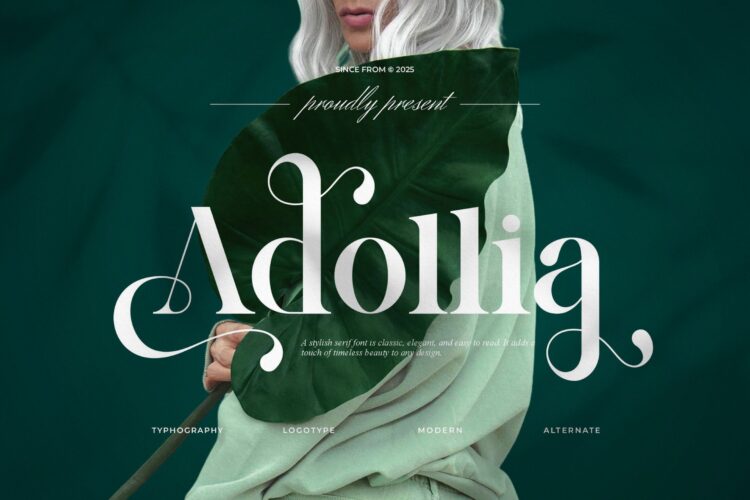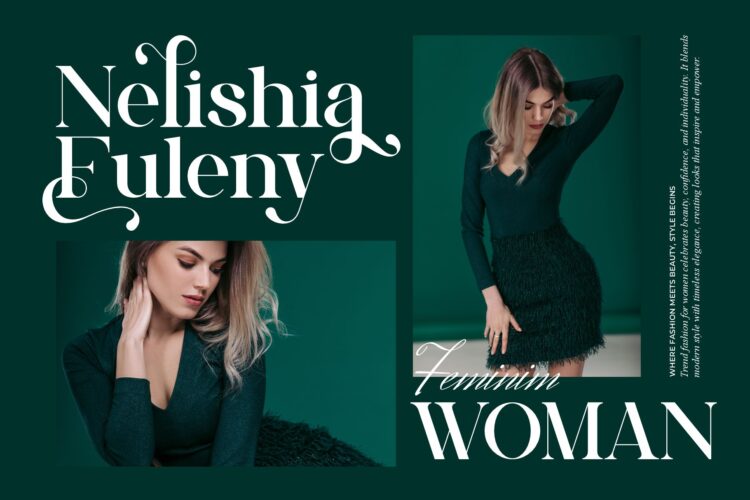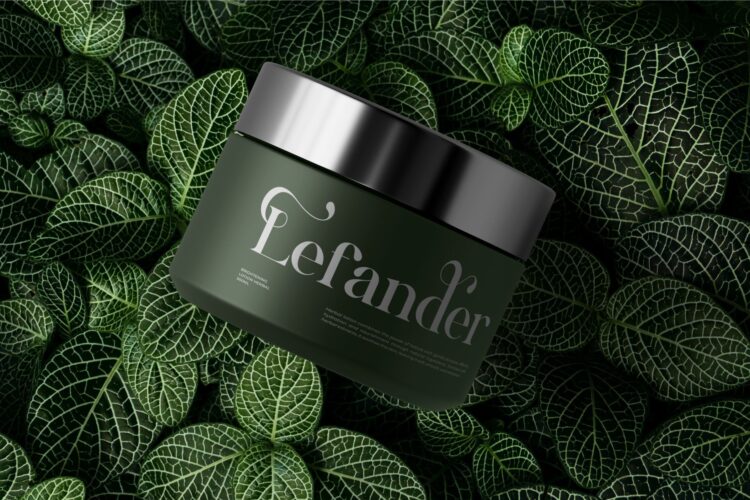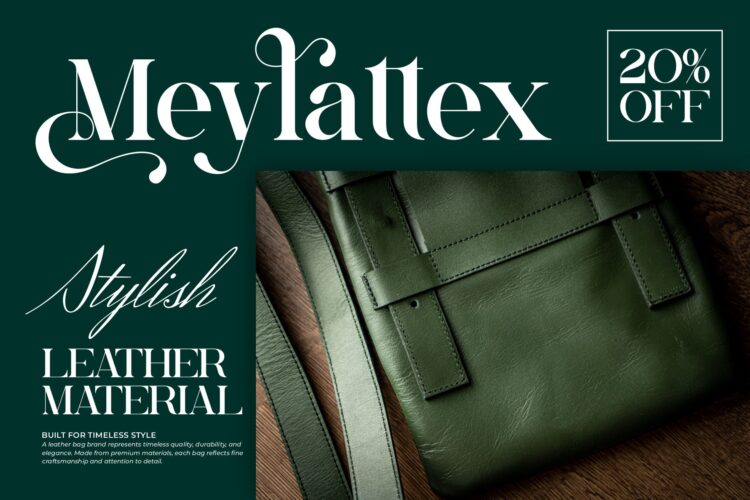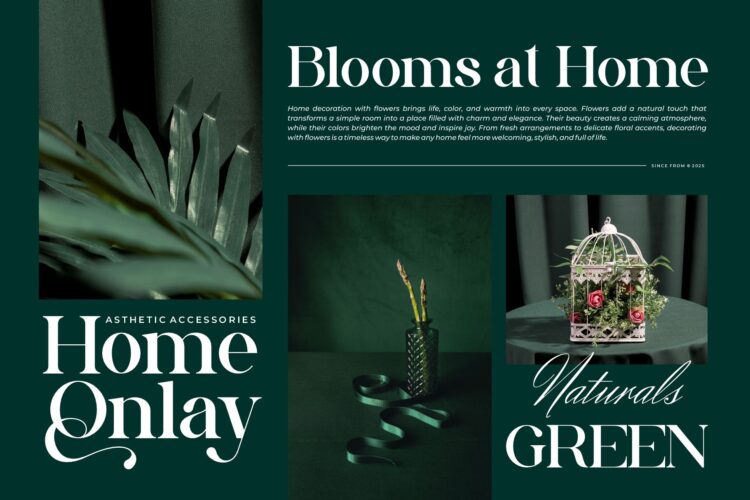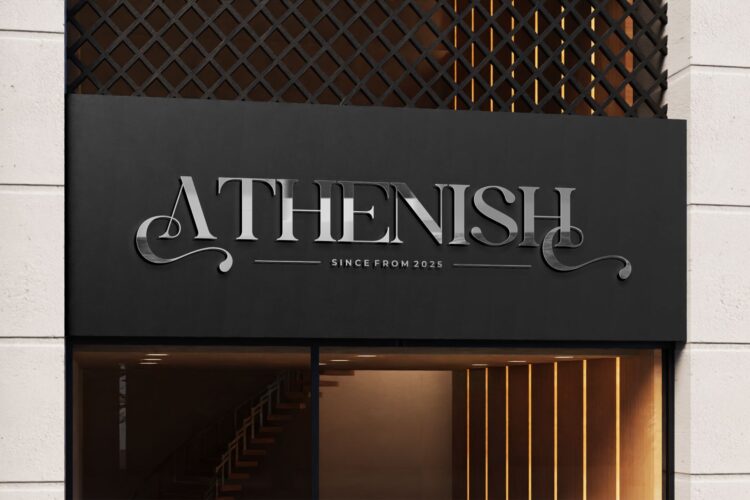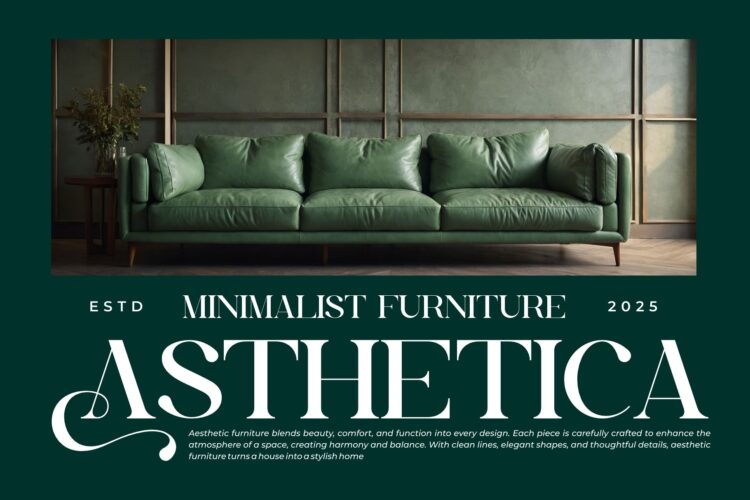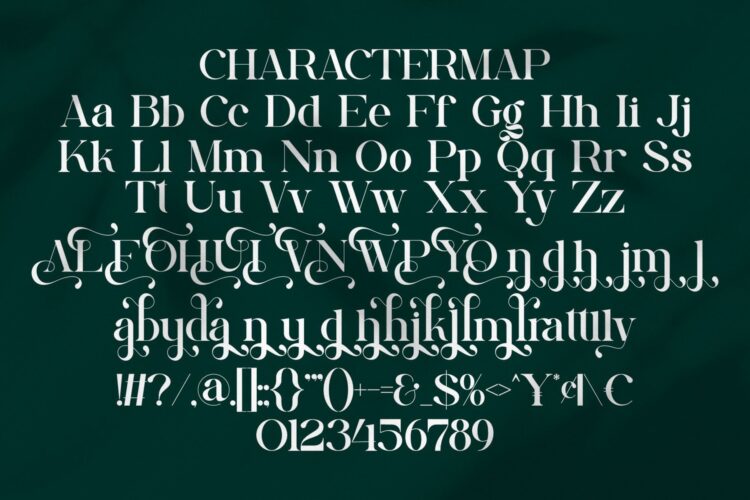
Adolia Serif is a modern and elegant font type for all branding and logo designs. This modern and elegant serif font has a beautiful character. This font is suitable for invitation card designs, cool logos, movie titles, movie names, business cards, book titles, brand names, and various other designs. Adolia Serif is a smooth serif font that exudes sophistication and the moment. Its stylish ligatures and alternate make this font a perfect partner for any project.
– Ligature & alternate